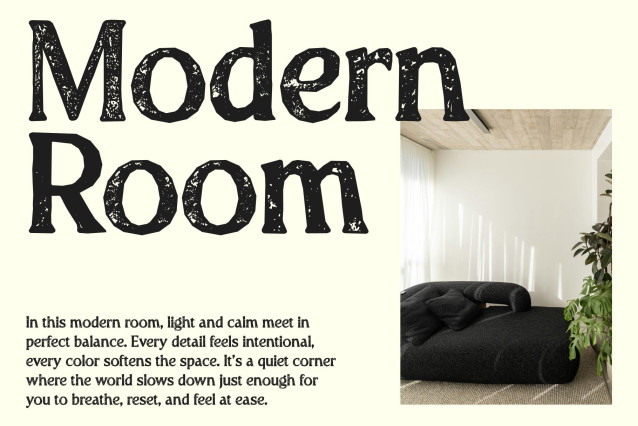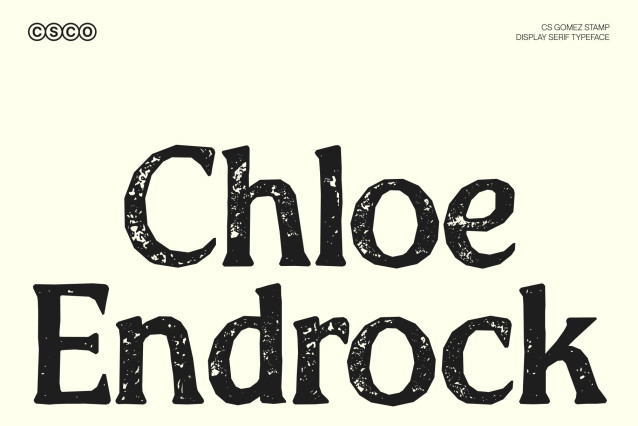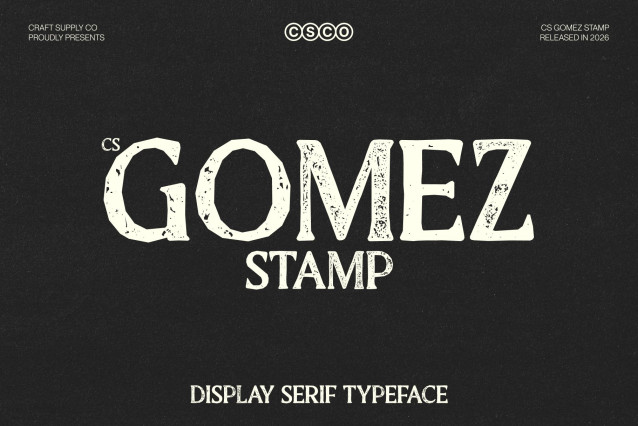
CS Gomez Stamp Font
CS Gomez Stamp – Modern Precision with Elegant Vintage Confidence
Contemporary Serif with Sharp Character
This is a modern serif font defined by sharp angles and refined proportions, now enriched with a subtle stamp texture that introduces depth and character. This combination creates a balanced aesthetic where sophistication meets a timeless printed feel.
Sleek Geometry with Printed Elegance
Crisp angular details give the font strength and precision, while the modern serif structure maintains graceful flow and readability. The stamped finish softens the precision with gentle imperfections, adding warmth and an artisanal touch that enhances its refined personality.
Ideal for Luxury and Professional Branding
Perfect for luxury brands, editorial layouts, corporate identities, and premium packaging, this font delivers a confident and high-end impression. The vintage-inspired texture helps designs feel more authentic, memorable, and visually rich.